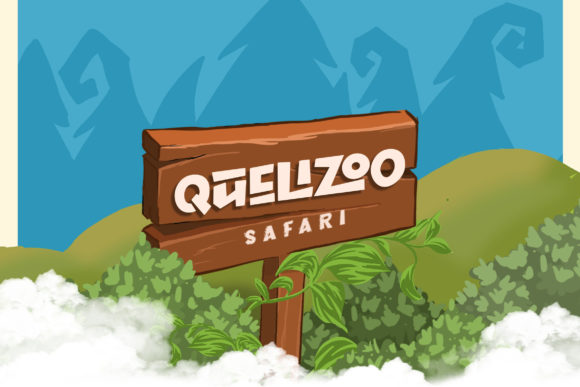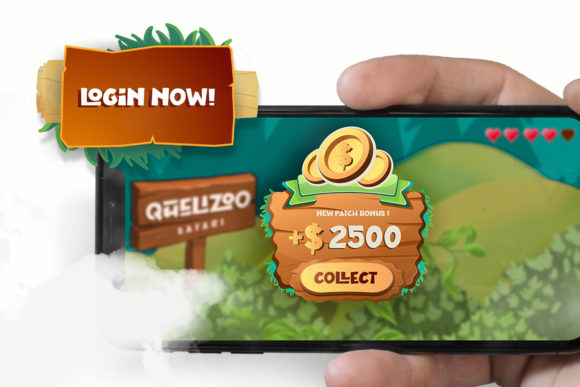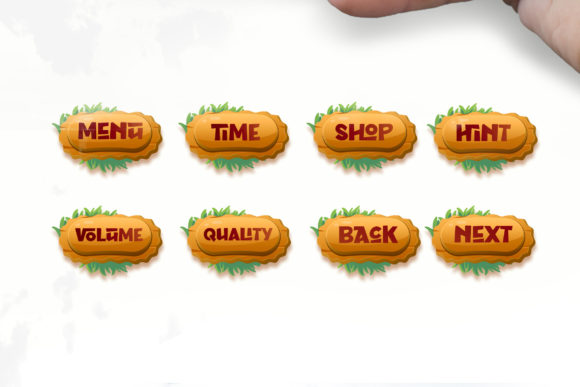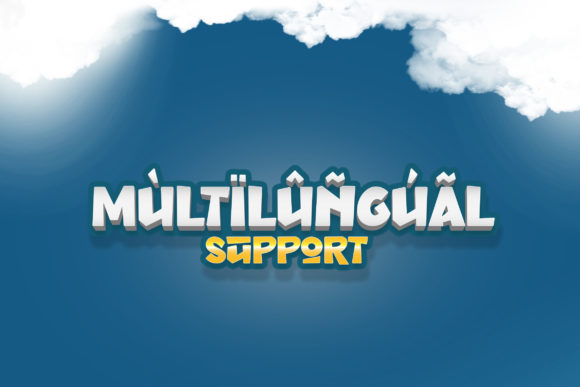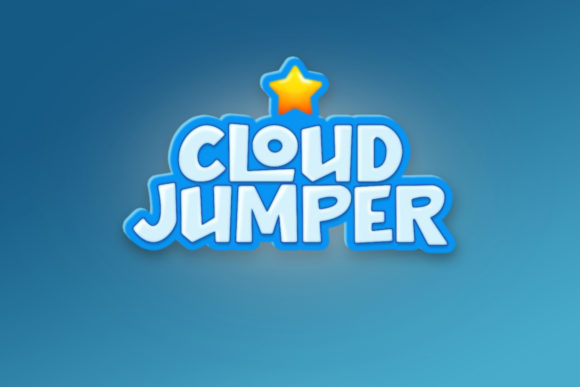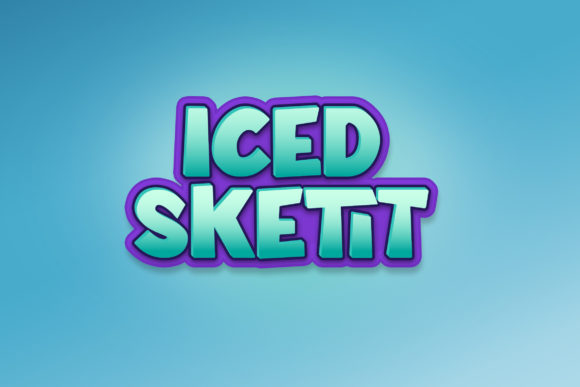
Introducing Grozel Font: The Ultimate Gaming Display Logotype
Are you a designer, gamer, or crafty enthusiast looking for a font that embodies the spirit of gaming? Look no further than Grozel Font, a stunning display logotype font that’s perfect for a wide range of projects. In this article, we’ll dive into the world of Grozel Font, exploring its features, uses, and benefits.
What is Grozel Font?
Grozel Font is a gaming display logotype font that’s designed to make a statement. With its fancy, playful, and cool style, it’s the perfect choice for anyone looking to add a touch of gaming flair to their designs. Whether you’re working on a logo, branding, magazine, social media, or advertisement, Grozel Font is sure to turn heads.
Key Features of Grozel Font
- Fancy and Playful Style: Grozel Font boasts a unique and eye-catching design that’s perfect for gaming and entertainment-related projects.
- Cool and Modern Aesthetic: This font is designed to give your designs a fresh and modern look that’s sure to appeal to gamers and non-gamers alike.
- Versatile and Adaptable: Grozel Font can be used for a wide range of projects, from logos and branding to magazines, social media, and advertisements.
Uses of Grozel Font
Grozel Font is an incredibly versatile font that can be used for various projects, including:
- Gaming: Create stunning gaming logos, titles, and graphics with Grozel Font.
- Product and Fashion: Use Grozel Font to create eye-catching product labels, fashion branding, and apparel designs.
- Signature and Logo Design: Create unique and memorable signatures and logos with Grozel Font.
- Album Covers and Music: Use Grozel Font to create striking album covers and music-related designs.
- Branding and Advertising: Grozel Font is perfect for creating bold and attention-grabbing branding and advertisements.
- Magazine and Social Media: Use Grozel Font to add a touch of gaming flair to your magazine and social media designs.
Benefits of Using Grozel Font
So, why choose Grozel Font for your next project? Here are just a few benefits:
- Stand Out from the Crowd: Grozel Font is designed to make a statement and help your designs stand out from the competition.
- Easy to Read and Recognize: Despite its fancy and playful style, Grozel Font is easy to read and recognize, making it perfect for titles, headings, and logos.
- Scalable and Versatile: Grozel Font can be scaled up or down without losing quality, making it perfect for a wide range of projects and applications.
Tips and Tricks for Using Grozel Font
To get the most out of Grozel Font, here are a few tips and tricks:
- Experiment with Colors and Effects: Grozel Font looks great with bold and bright colors, so don’t be afraid to experiment and find the perfect combination for your design.
- Mix and Match with Other Fonts: Grozel Font can be paired with other fonts to create a unique and eye-catching design.
- Use it for Headings and Titles: Grozel Font is perfect for headings and titles, so use it to add a touch of gaming flair to your designs.
Grozel Font is an incredible gaming display logotype font that’s perfect for designers, gamers, and crafty enthusiasts. With its fancy, playful, and cool style, it’s the perfect choice for a wide range of projects, from logos and branding to magazines, social media, and advertisements. Whether you’re looking to create a stunning gaming logo or add a touch of gaming flair to your designs, Grozel Font is the ultimate choice.